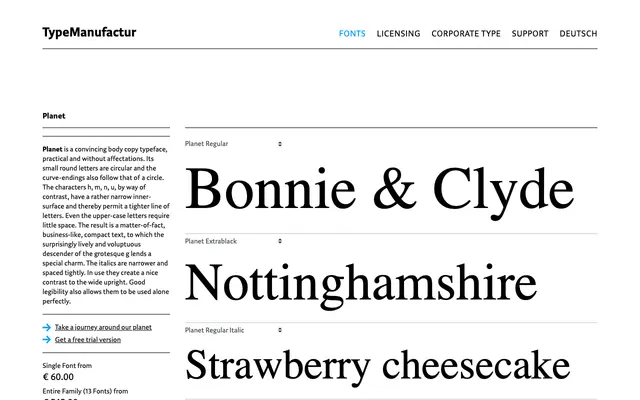
A contemporary serif family from Typemanufactur spanning six weights from Light to Extrablack, with italics and small caps across the lighter cuts.
Planet covers a wide tonal range, from delicate Light through to a heavy Extrablack, making it suitable for both running text and display settings. Small caps are available in Light, Regular and Medium, adding typographic depth for editorial and book work. Italics accompany the three lightest weights, giving the family a classical structure while the heavier ends push toward expressive use.
Planet is a contemporary serif with small caps support and a broad weight range from Light to Extrablack, suggesting a text and display hybrid with classical serif structure and modern proportions.